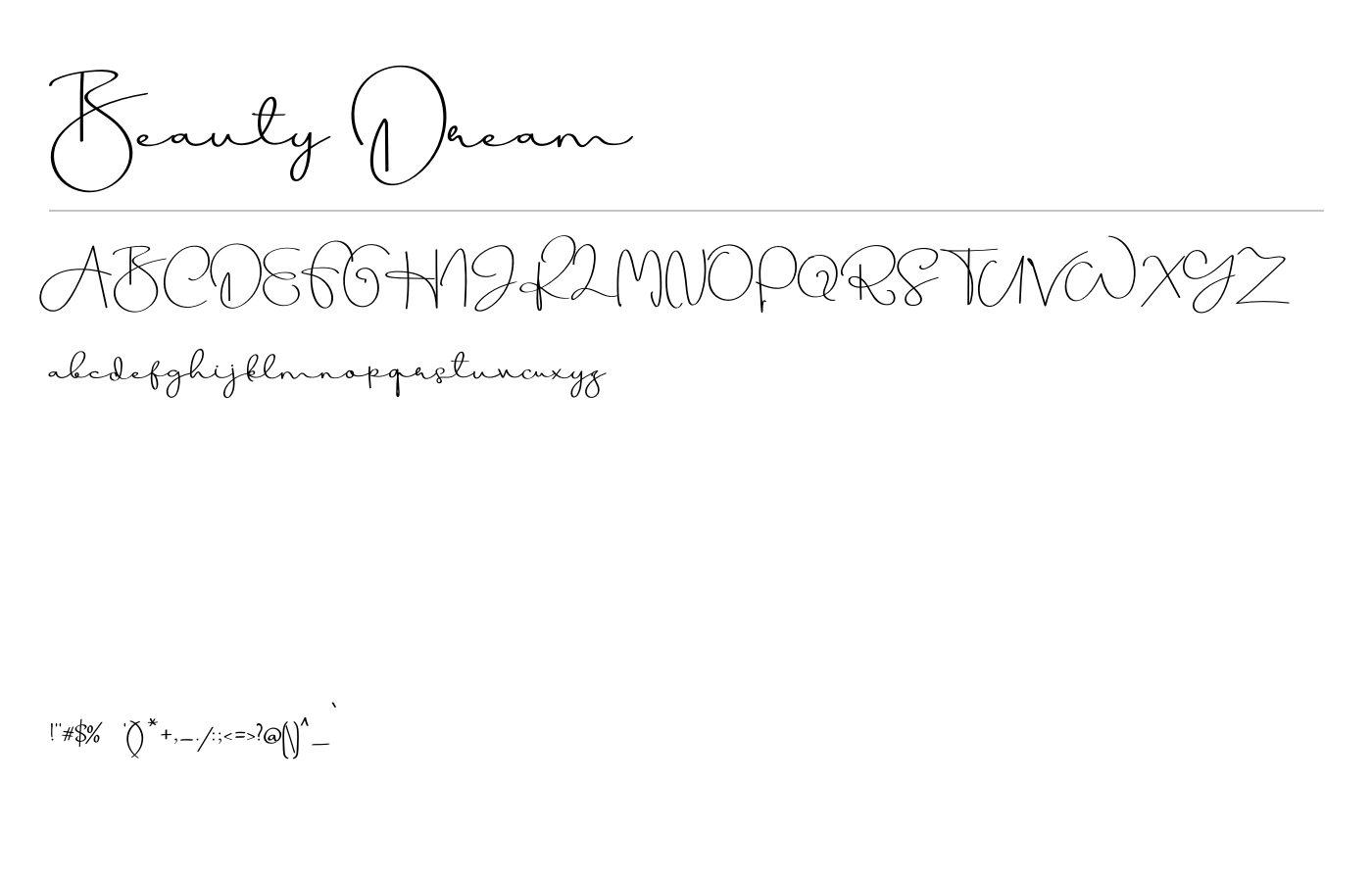
Beauty Dream Font is a delicate, hand-drawn script with graceful, flowing strokes that convey elegance and creativity. Its light weight and airy, whimsical character make it perfect for beauty, fashion, or lifestyle branding where a personal, artistic touch is desired. This font works beautifully in logos and headlines, adding a stylish and dreamy feel to any design.
Beauty Dream Font